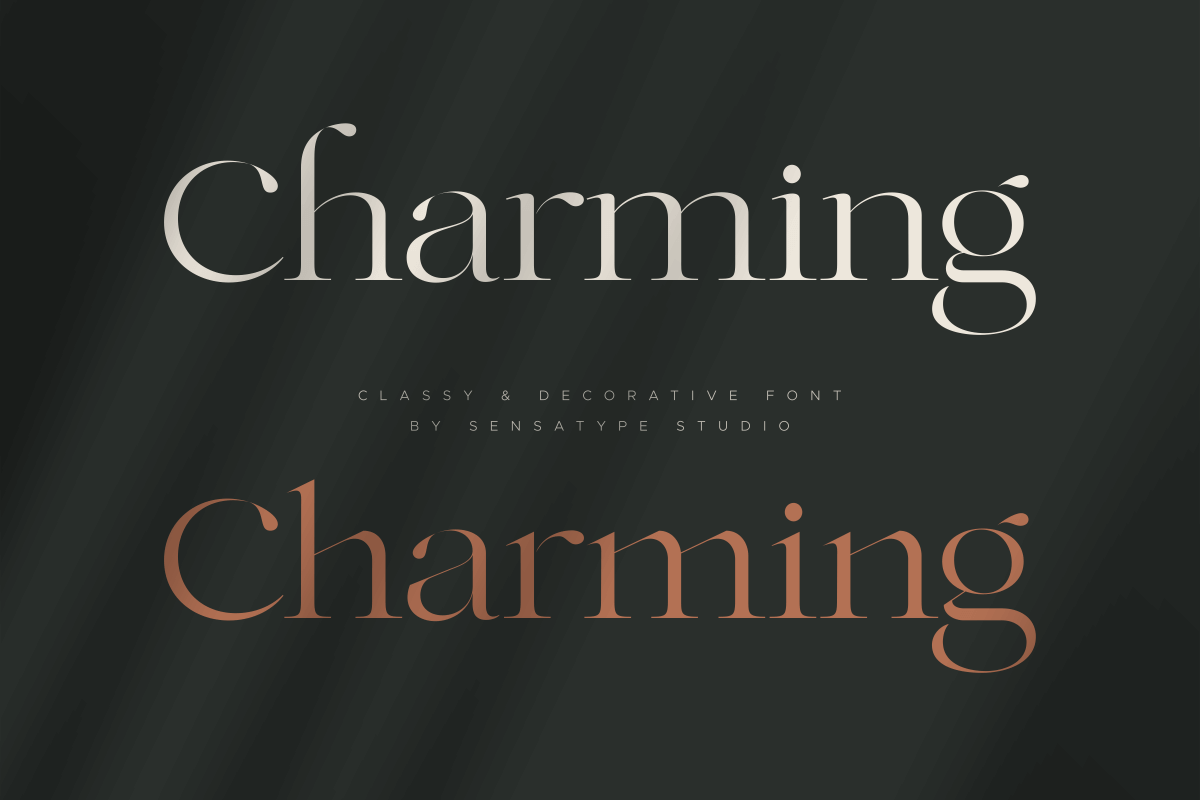
Charming
-Classy Decorative Display Font
Charming - Classy Decorative Display Font
Charming is a classy decorative font designed for creating elegant and memorable visual identities. Combining sophisticated details with a unique decorative style, this typeface brings a premium and creative personality to modern designs.
Perfect for branding projects, logo design, fashion identities, wedding invitations, packaging, social media graphics, and editorial layouts. Charming helps designers create stylish typography that feels elegant, distinctive, and visually engaging.
With its decorative letterforms and classy appearance, Charming is a versatile font choice for brands and creatives who want to create unique logos and premium visual presentations.